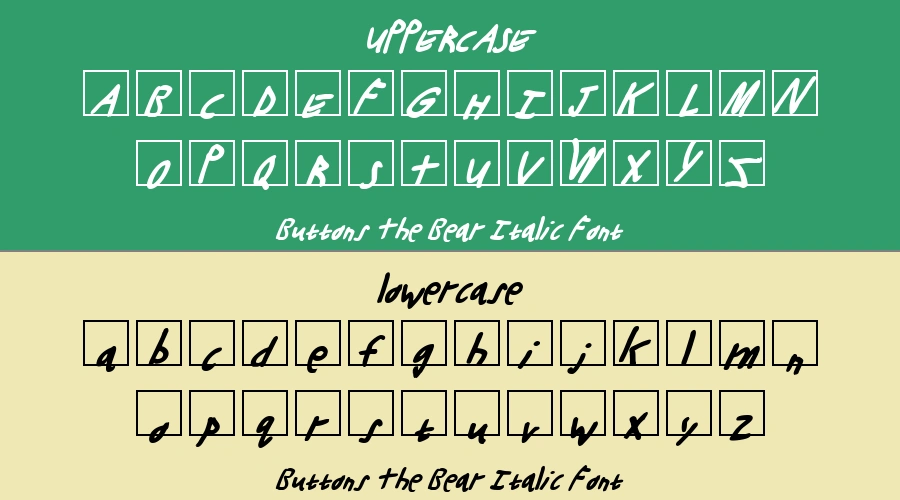
About Buttons The Bear Italic Font
Designed with precision, Buttons The Bear Italic Font merges precise joints with visual comfort in every character. This versatility makes it particularly effective for scientific papers, where integrity and artistic value directly impact communication quality. Each letterform demonstrates meticulous craftsmanship.
Technical excellence shines through elements like fluid connections and case-sensitive forms, enhancing typographic versatility. In creative titles settings, Buttons The Bear Italic Font proves its worth through superior small text rendering. The thoughtful execution of joint construction and academic heritage ensures professional results.